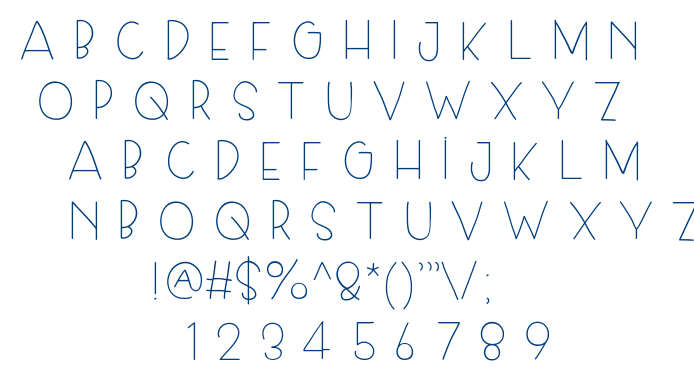
Tiny Small Medium Large Skip Leg Day font dilem Website SkipLegDay.ttf Download 4013 downloads Free for personal use Category: Script » Handwritten Skip Leg Day is a fun handwritten display typeface with giant torso and tiny legs, hope you enjoy it! Character Map specimen sheet